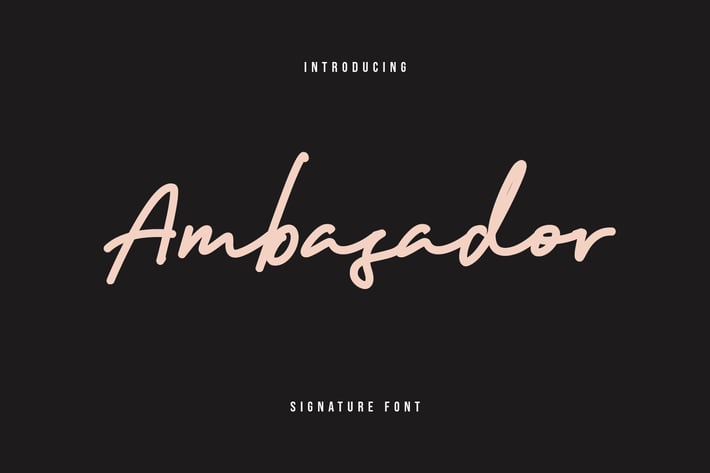
Ambasador Signature Font
Give your designs an authentic handcrafted feel. “ Ambasador Signature Font” is perfectly suited to stationery, logos and much more.